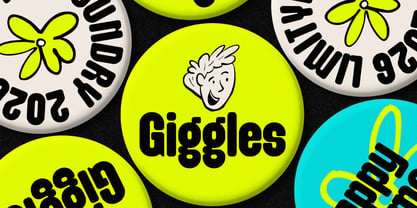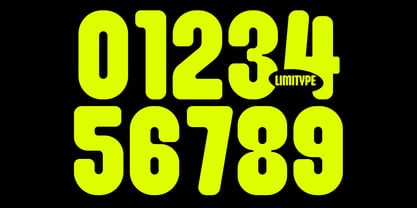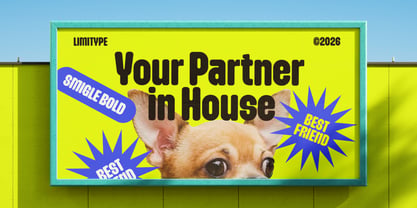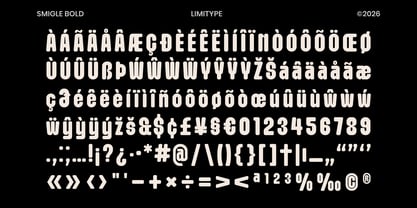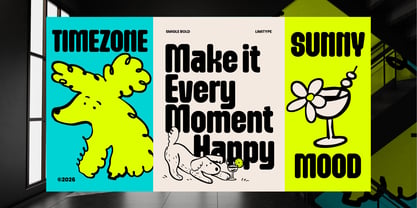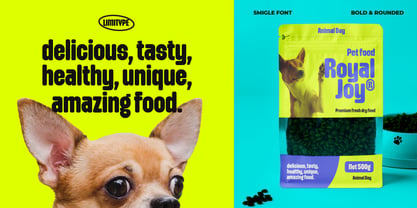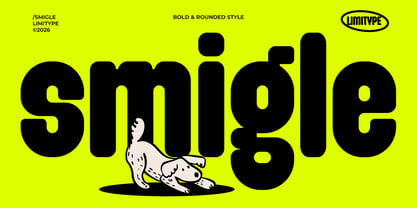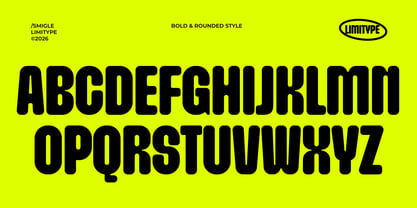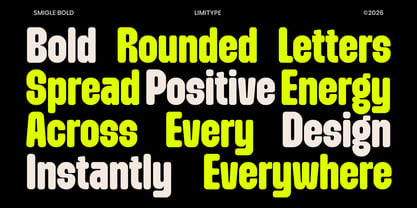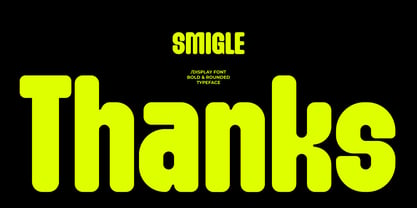
Smigle
par limitype
La famille de polices Smigle a été conçue par Muhammad Muammar, Furqan Sudirman et publiée par limitype. Smigle contient 1 styles. En savoir plus sur cette famille
Smigle is a bold rounded display font with a cheerful, friendly, and approachable personality. Featuring smooth curves, bold letterforms, and balanced proportions, Smigle creates eye catching typography without compromising readability. Its playful appearance makes it a perfect choice for branding, logos, packaging, children's products, food and beverage, social media graphics, posters, headlines, editorial layouts, and a wide range of creative marketing materials. Whether you're building a fun brand identity or creating striking visuals, Smigle brings warmth, confidence, and a memorable character to every design.
• Uppercase
• Lowercase
• Number
• Symbol
• Multilingual